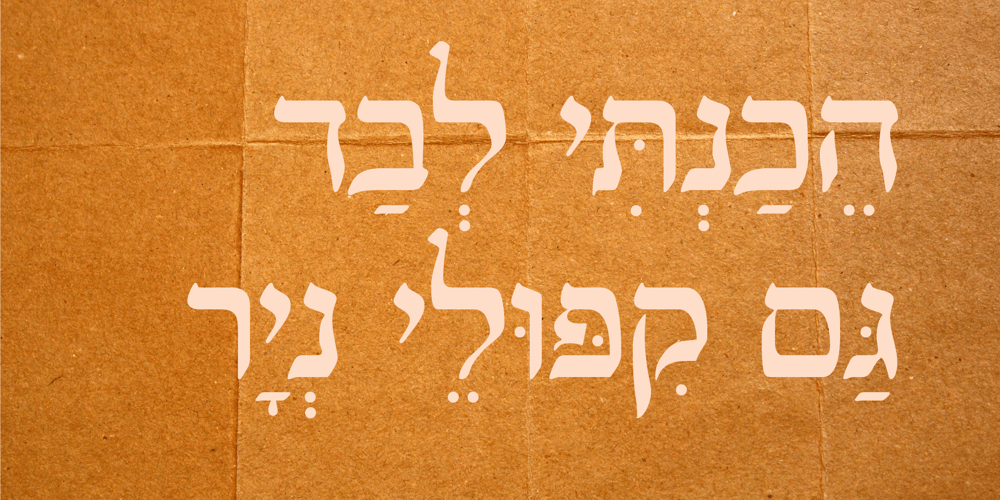
Le Be MF
Le Be MF font
Le Be MF Font Family was designed by Zvika Rosenberg and published by Masterfont. Le Be MF contains 2 styles and family package options. Revival of typographer and punch cutter Guillaume LeBe’s Hebrew typeface from the 1580.